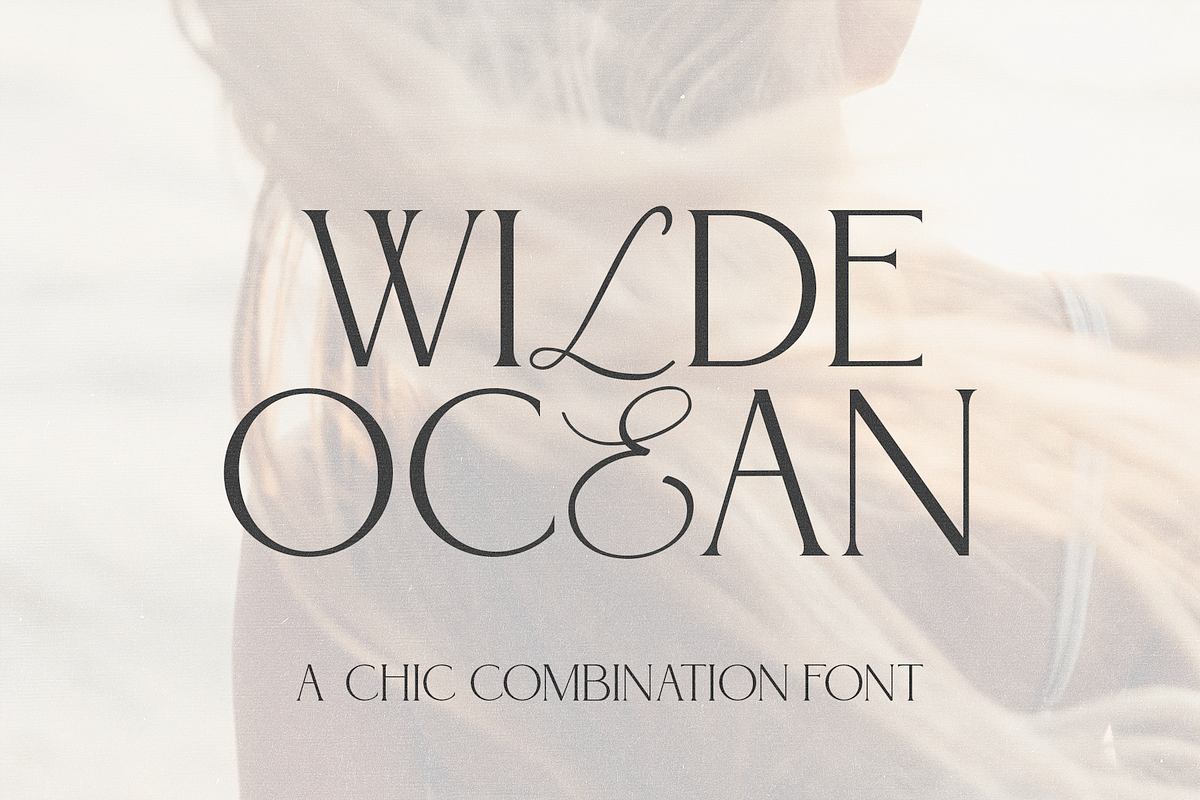
Bring timeless elegance to your designs with Wilde Ocean Calligraphy Serif Font Free Download — a stunning typeface that combines calligraphy-inspired letterforms with classic serif structure. Perfect for wedding invitations, luxury branding, editorial layouts, logo design, and high-end social media content, Wilde Ocean exudes sophistication and charm.
With sweeping curves and graceful details, Wilde Ocean adds a touch of artistic beauty to your typography while maintaining clarity and professionalism. It includes uppercase and lowercase characters, numerals, punctuation, and multilingual support — giving you the versatility to create beautiful, functional designs.